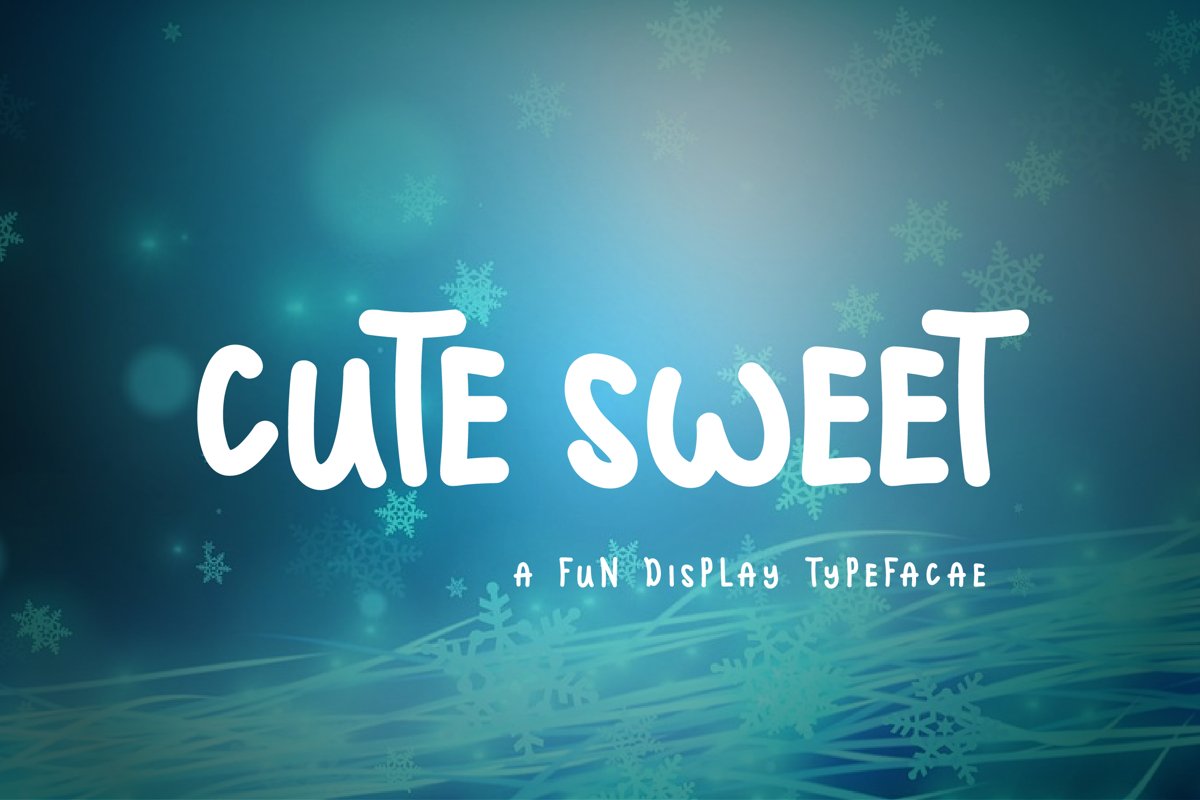
Cute Sweet Display Font
CUTE SWEET
Cute Sweet is a sweet and simple hand-drawn font. His brave character adds a lot of personality to any project. It is suitable for logos, for items to purchase with unlimited sales, and can be changed into web fonts!